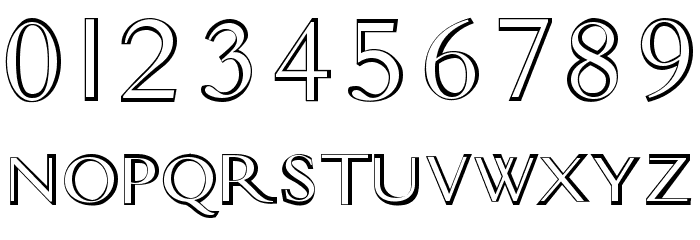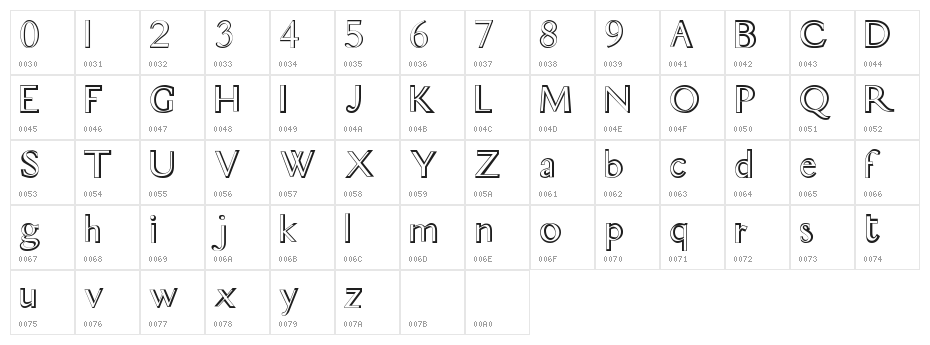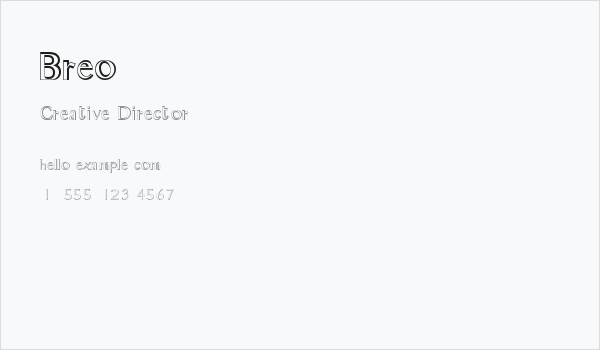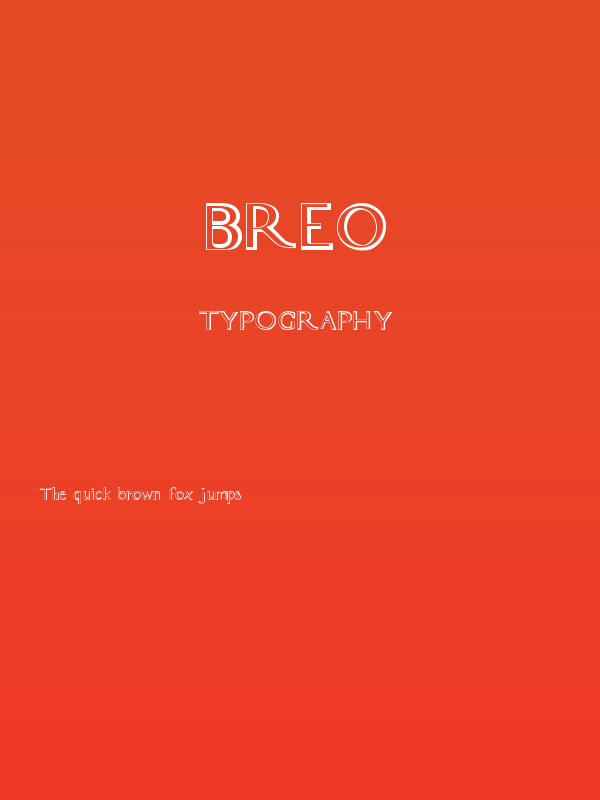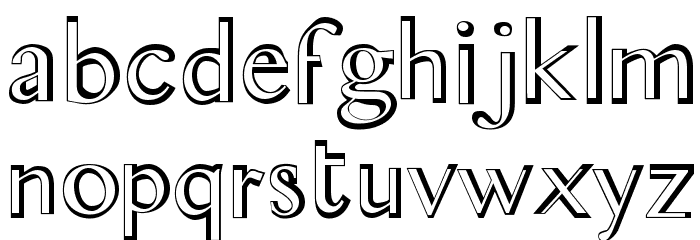
Breo Font
Breo Description
This font features a unique blend of modern and classic elements, characterized by its outlined, hollow style. The uppercase letters are bold and structured, with a geometric influence that gives them a contemporary feel. The lowercase letters maintain a consistent style, with rounded edges that add a touch of softness. The numerals are clear and legible, matching the overall aesthetic of the alphabet. Special characters are included, maintaining the same outlined design. This font is versatile, suitable for both digital and print media, offering a distinctive look that stands out.
Tara Gabin
| Proposed Projects | Ideal for branding, headlines, posters, and digital media where a bold statement is needed. |